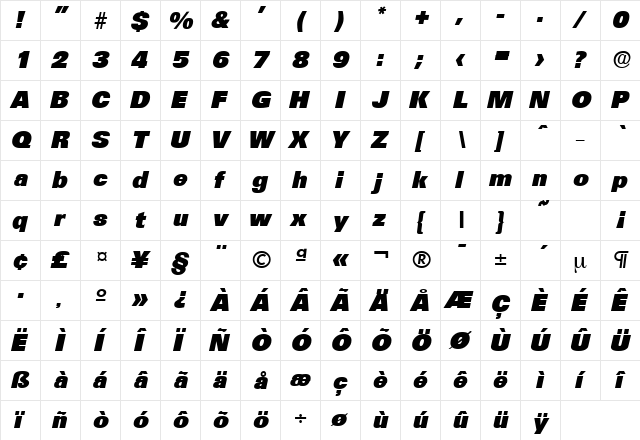
Ultimate-Serial-Heavy RegularItalic
Design Context for Ultimate-Serial-Heavy Typeface
Ultimate-Serial-Heavy is a composed and adaptable typeface that performs quietly and consistently across a wide range of design contexts. The slanted form adds forward momentum and visual energy.
Pro Tip: Try Ultimate-Serial-Heavy for annotation and caption copy alongside an upright companion — the contrast in angle creates a dynamic but ordered typographic system.